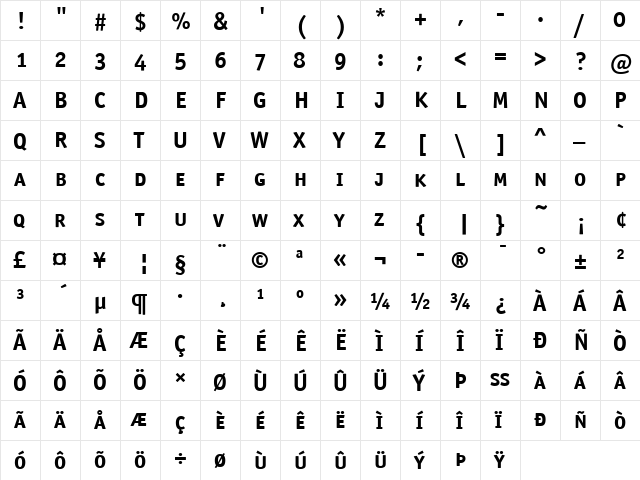
OfficinaSanITC Bold
| Foundry | \ International Typeface Corporation and by Erik Spiekermann, Ole Schaefer |
Design Context for OfficinaSanITC Typeface
OfficinaSanITC is a composed and adaptable typeface that performs quietly and consistently across a wide range of design contexts. The heavy weight commands attention and anchors typographic hierarchies.